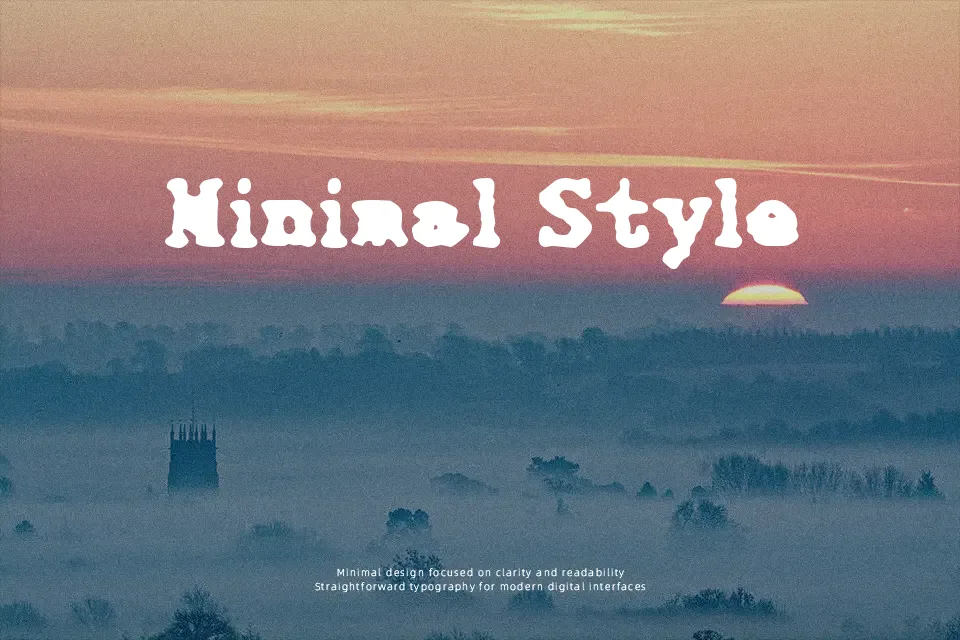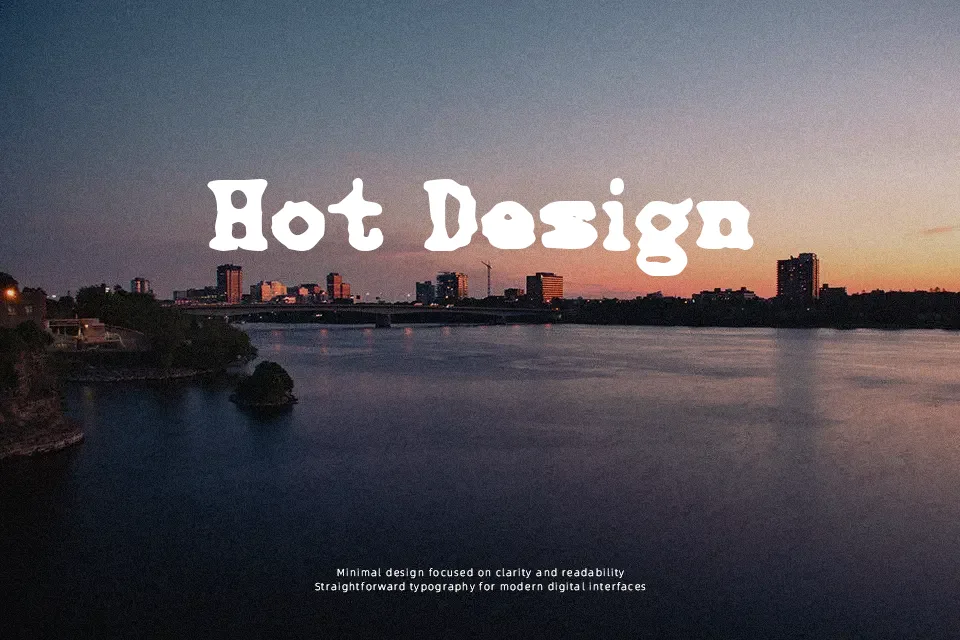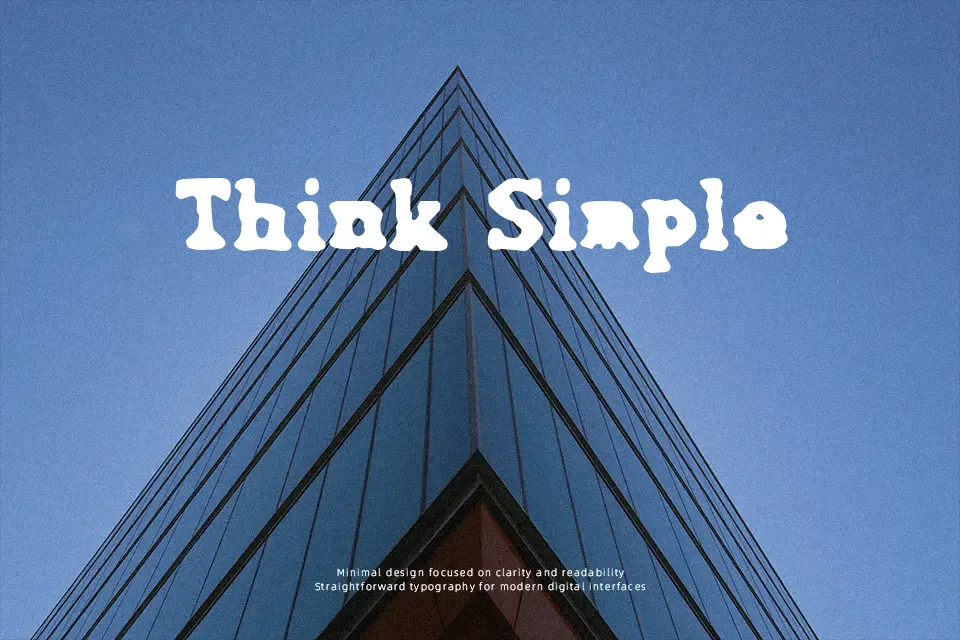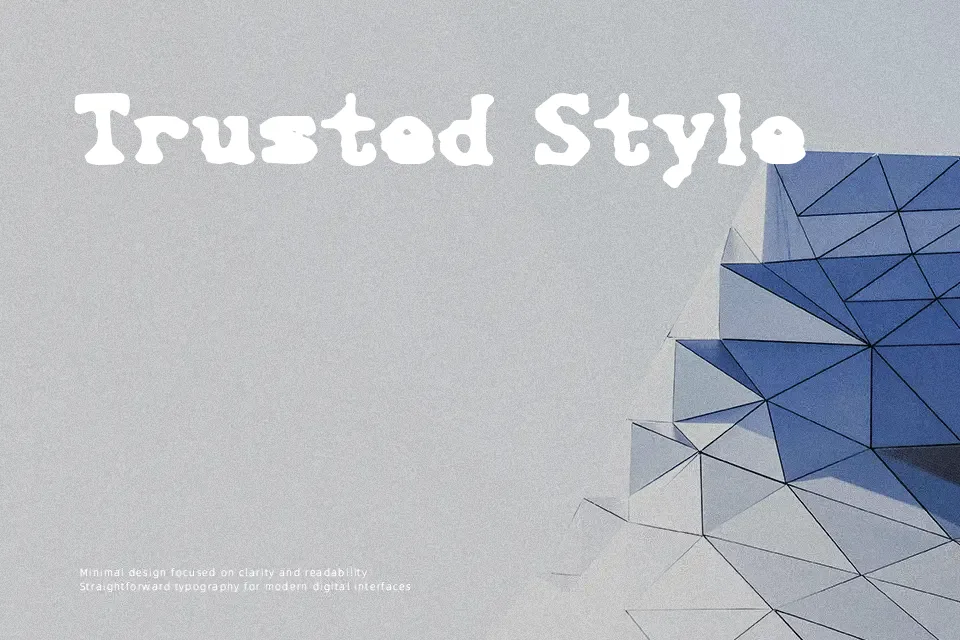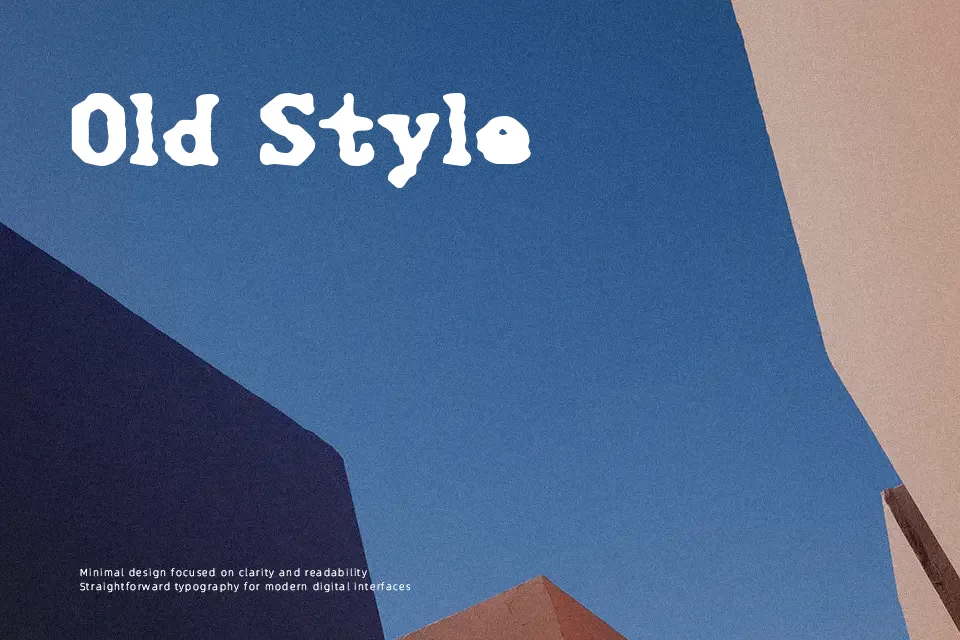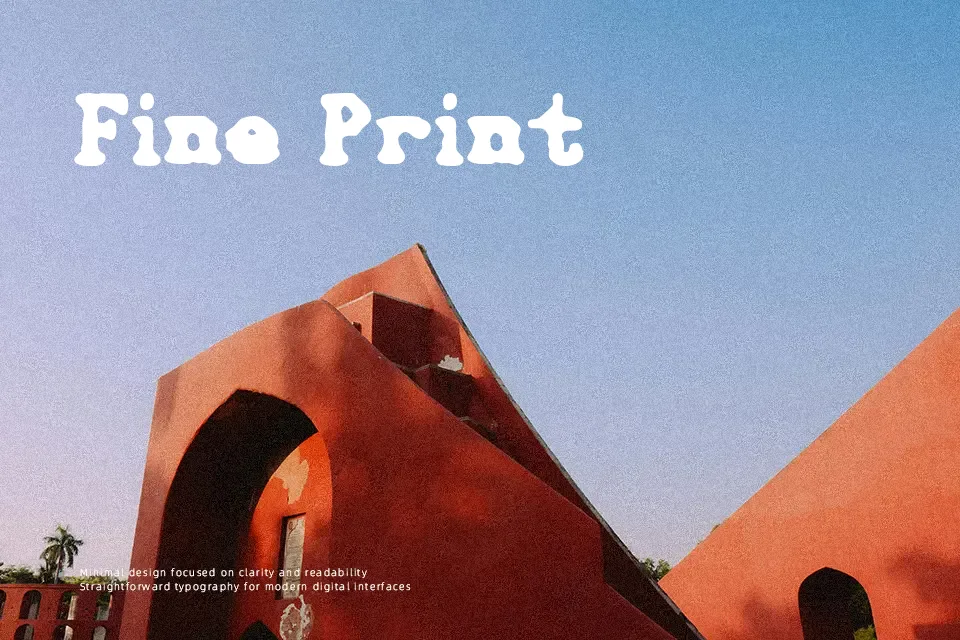
3000 Font
The 3000 font delivers a heavily eroded, distressed aesthetic where each character appears worn down by time or friction. Stroke edges are irregular and fragmented, giving the typeface a raw, degraded quality that reads more as a visual statement than neutral typography. It works well for single-word headings, music album artwork, or horror-themed event posters where gritty imperfection reinforces the message. However, it struggles significantly at smaller sizes — erosion detail turns into noise below 24pt, making legibility unreliable. For multi-line or body-length text, the texture quickly becomes fatiguing. Best deployed as a headline or title in isolation, not as a workhorse typeface.
Best For:- Horror or dark-themed event posters
– Music album or band merchandise headers
– Underground zine or experimental print layouts
– Grunge-style social media graphics
Not Ideal For:- Body text or long reading passages
– Small-size applications (under 24pt)
– Corporate or professional branding
– Accessibility-focused UI design